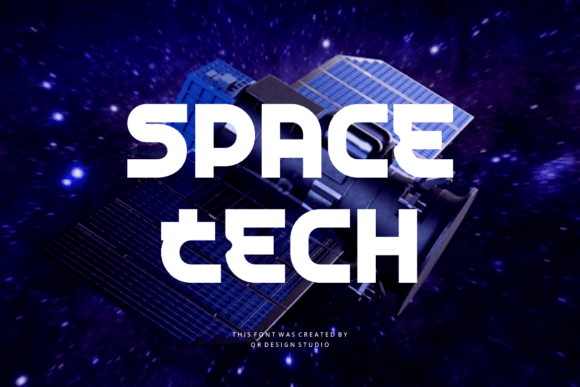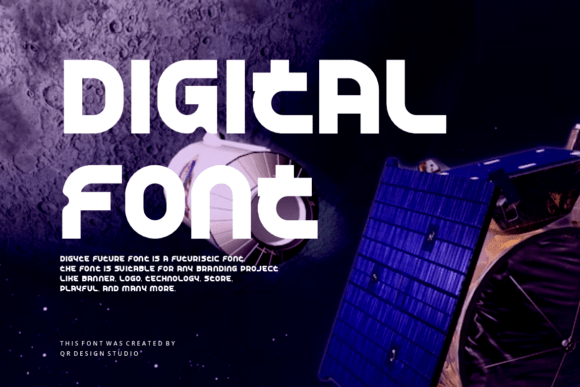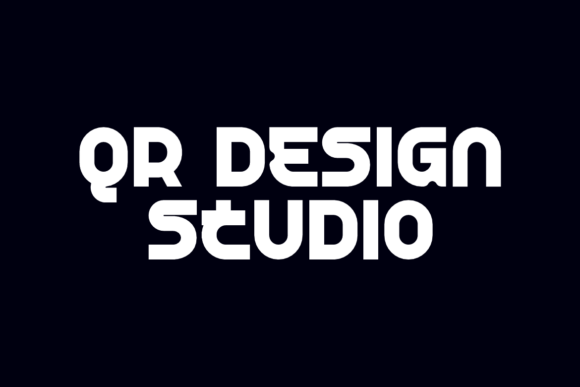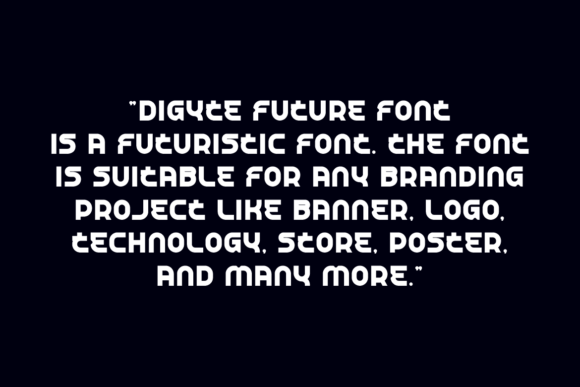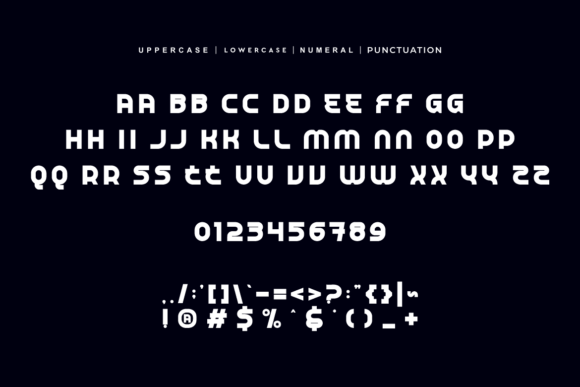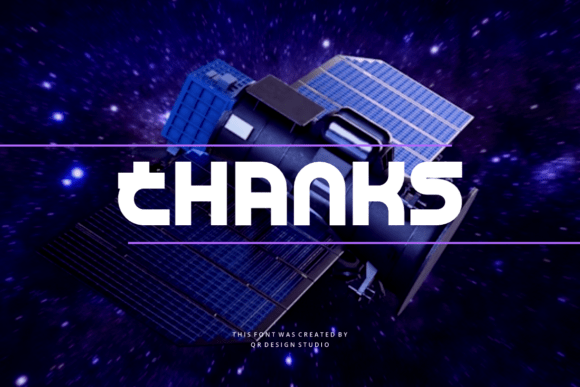
The Power of Typography: Elevate Your Creations with Digyte Future Font
Do you remember that moment when you stared at a blank page, unsure of where to begin, but a spark of creativity suddenly ignited? The blank page transformed into a canvas, and your ideas started flowing. That’s what happens when you have the right tools at your disposal – and for designers, a powerful font like the Digyte Future Font is a game-changer.
This bold and assertive sans serif font is designed to elevate any creation, regardless of the topic or style. Its versatility makes it a valuable asset to any font library, capable of adding a touch of sophistication and modernity to your designs. Whether you’re working on a branding project, creating a website, or crafting a social media campaign, the Digyte Future Font is sure to make a lasting impression.
Digyte Future Font Key Features
- Font Family: Digyte Future Font is a sans-serif font family designed for futuristic and modern designs.
- Character Count: The font family includes a wide range of characters, including Latin, Cyrillic, and Greek alphabets, as well as various punctuation and symbol sets.
- Unique Characteristics: Digyte Future Font features a unique blend of geometric and futuristic elements, with clean lines, bold shapes, and a futuristic feel.
Digyte Future Font Review
Overall, I have mixed feelings about the Digyte Future Font. While it has some great features, there are also some areas where it falls short.
- The font’s futuristic design is well-executed and visually appealing.
- It’s highly customizable, allowing for a wide range of adjustments to suit different design needs.
- The font is compatible with most design software, making it easy to integrate into various projects.
- The font’s bold and sleek lines make it perfect for use in technology, sci-fi, and futuristic-themed designs.
- The font’s design can be overwhelming in smaller text sizes, making it difficult to read.
- There are limited language support options, which may be a concern for designers working with non-English clients.
- The font’s futuristic design may not be suitable for all types of projects, such as more traditional or conservative designs.
While the Digyte Future Font has some great features, its limitations may make it less suitable for certain design projects. However, for those who need a futuristic and bold font, it’s definitely worth considering.
For best results, use Digyte Future Font in conjunction with bold or italic text to create visual interest.
Experiment with different font sizes and colors to create a unique visual style.
Digyte Future Font is ideal for use in futuristic-themed designs, such as sci-fi movie posters or space-themed marketing materials.
It can also be used to add a touch of modernity to business presentations or marketing materials.
Alternatives to Digyte Future Font
1. Arial Rounded
Arial Rounded is a sans-serif font that offers a softer and more rounded look. It’s ideal for use in body text, especially in situations where a more approachable tone is desired. Compared to Digyte Future Font, Arial Rounded has a more subtle and less futuristic look, making it suitable for everyday use and not ideal for sci-fi or futuristic themes.
2. Inter
Inter is a modern sans-serif font designed for digital use. It’s highly legible and works well in a variety of contexts, from body text to headings. In comparison to Digyte Future Font, Inter has a more neutral and versatile design, making it a great choice for a wide range of projects, including modern and futuristic themes.
Montserrat is a sans-serif font inspired by the urban environment of Buenos Aires. It’s highly legible and has a strong, geometric feel. Compared to Digyte Future Font, Montserrat has a more gritty and industrial look, making it suitable for use in projects that require a strong, urban feel.